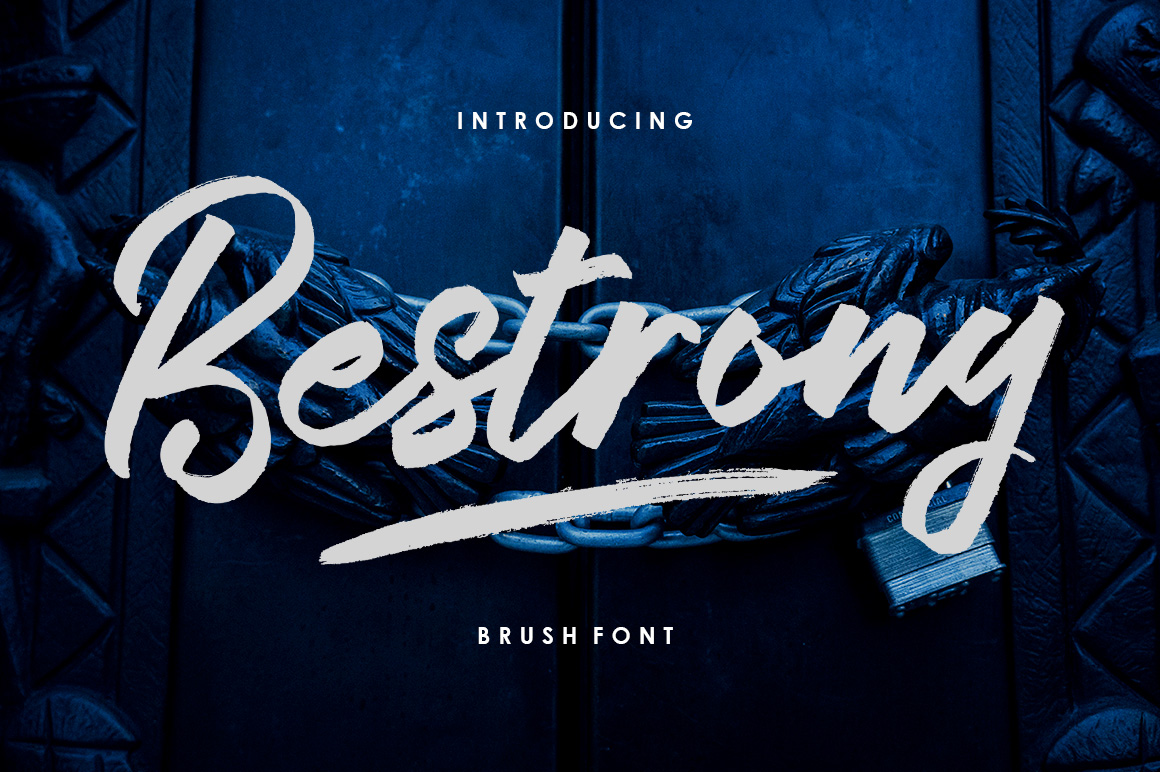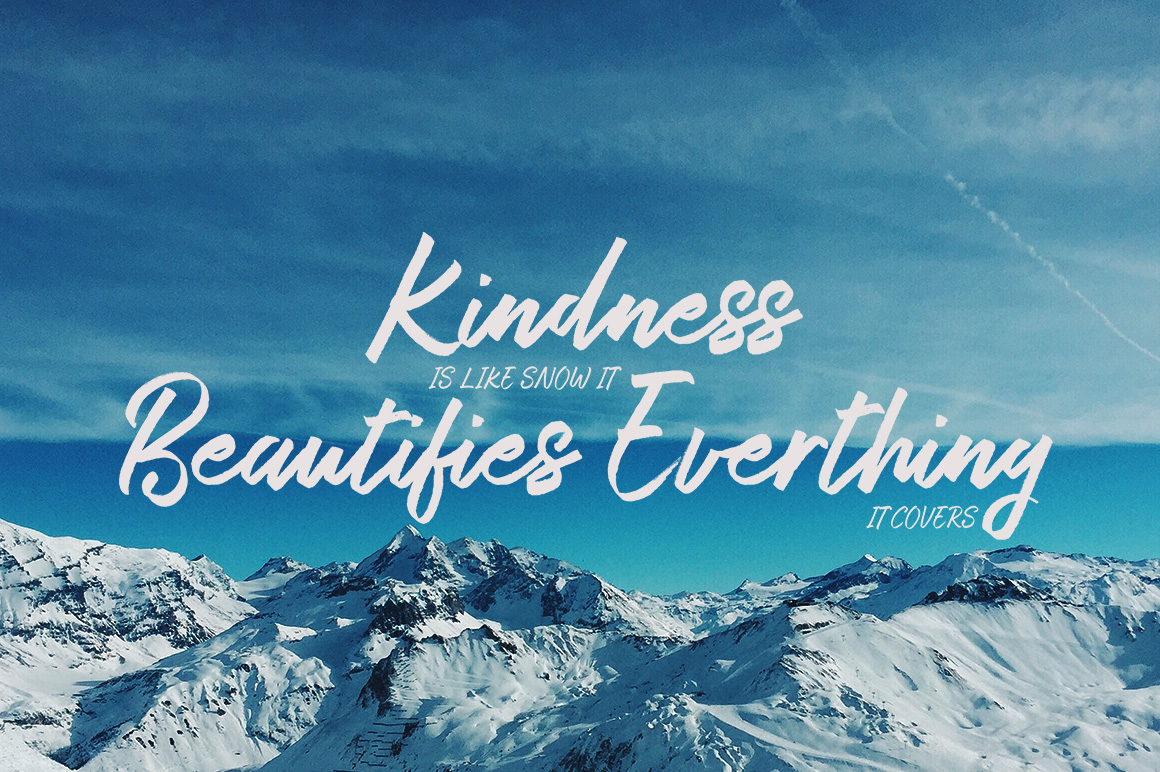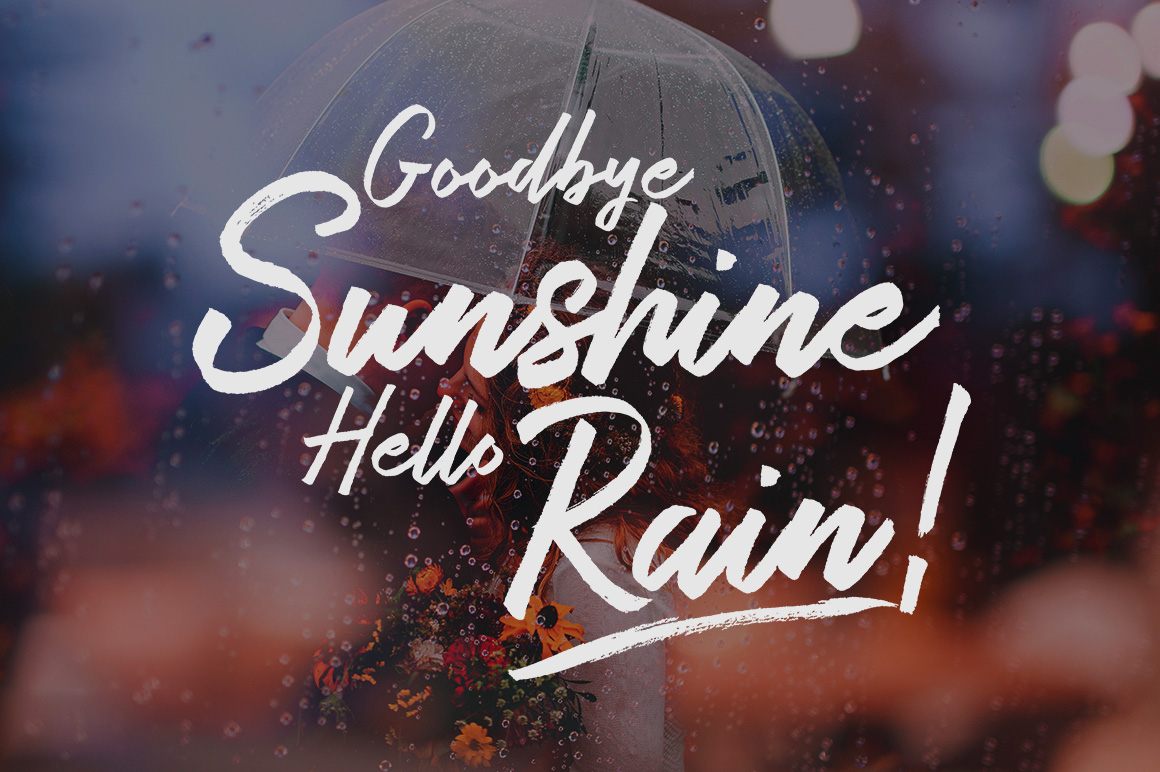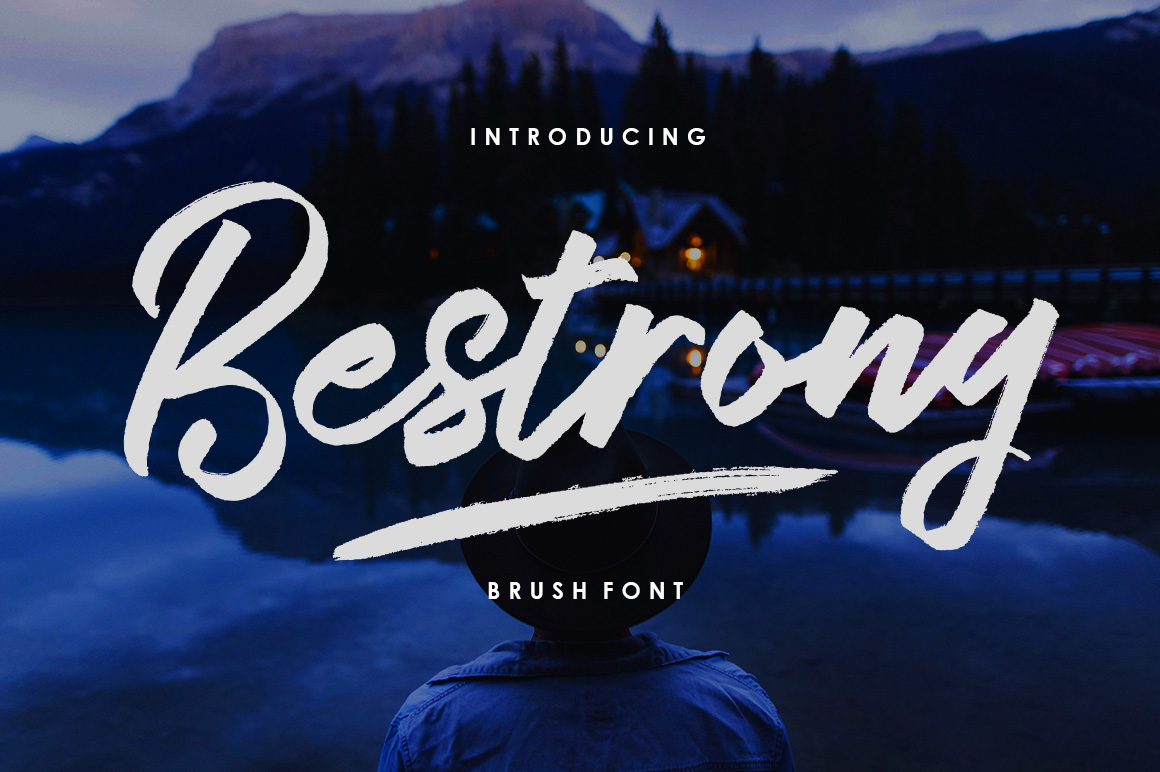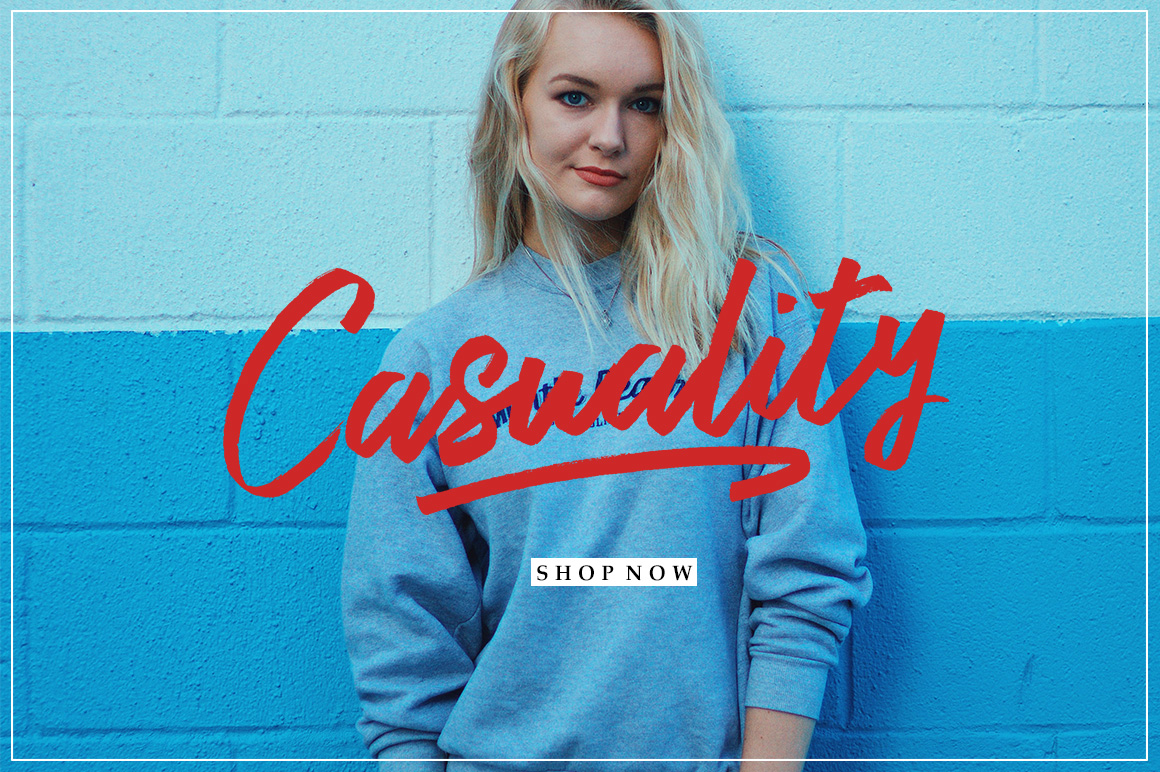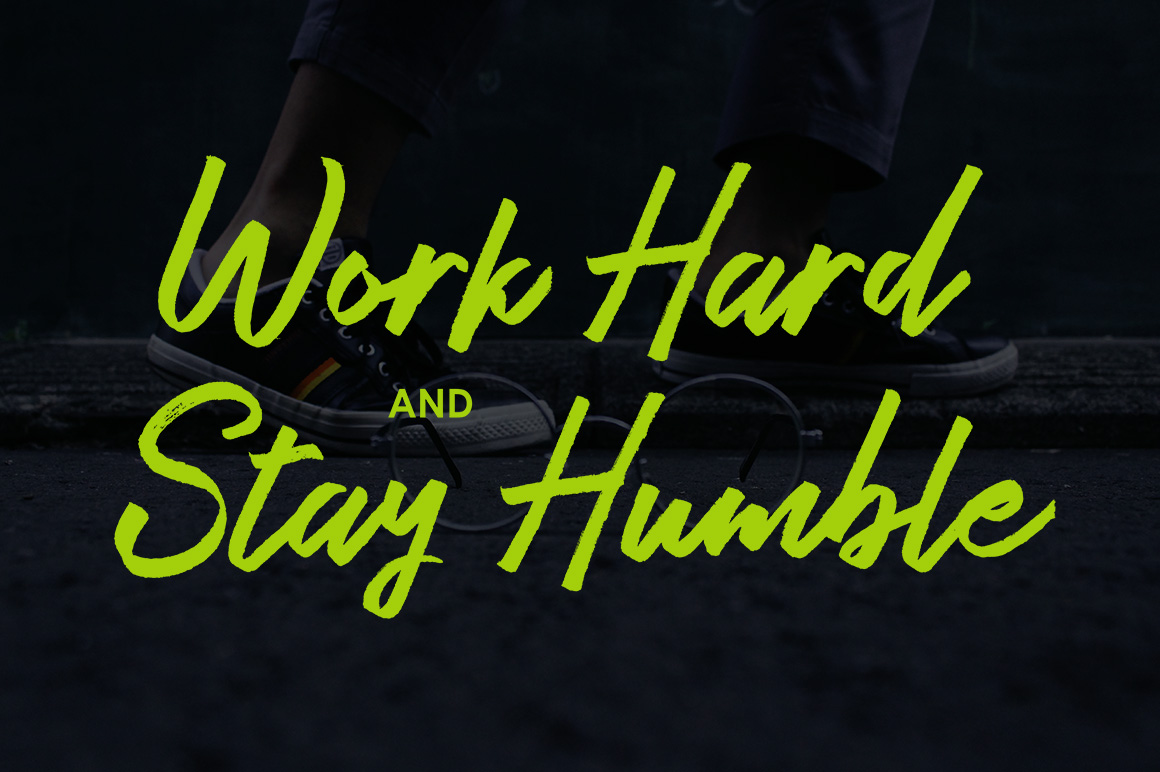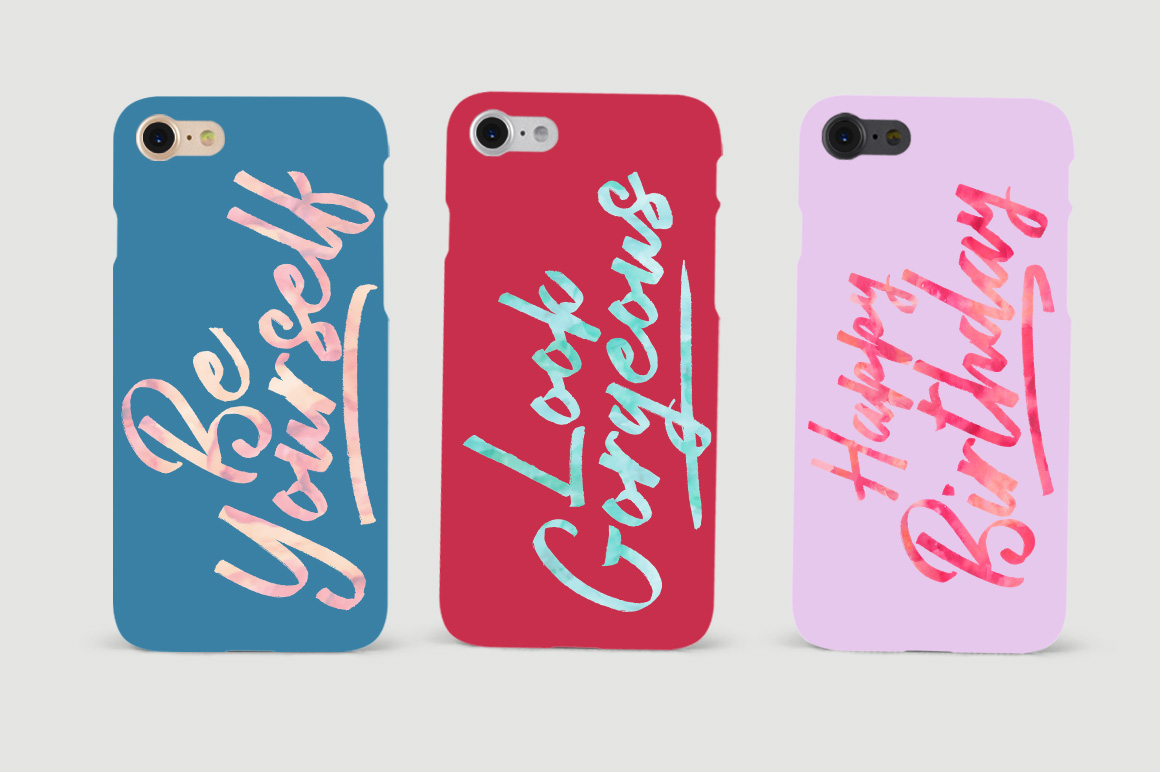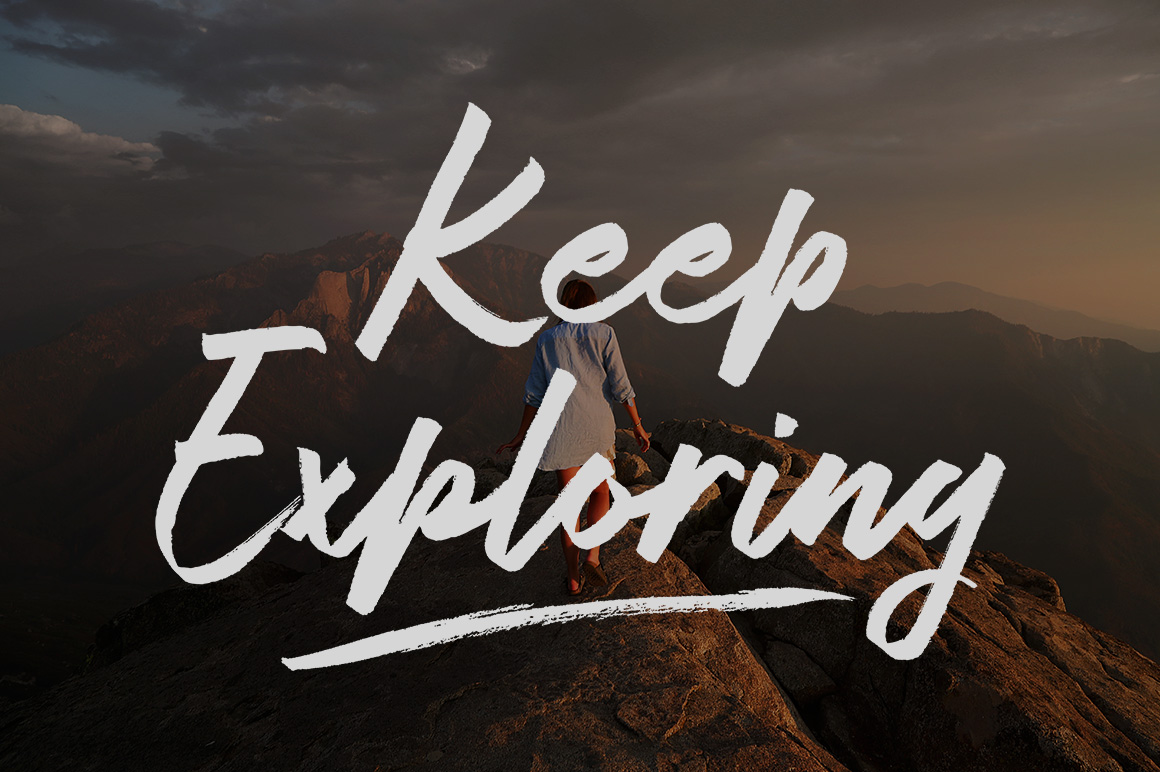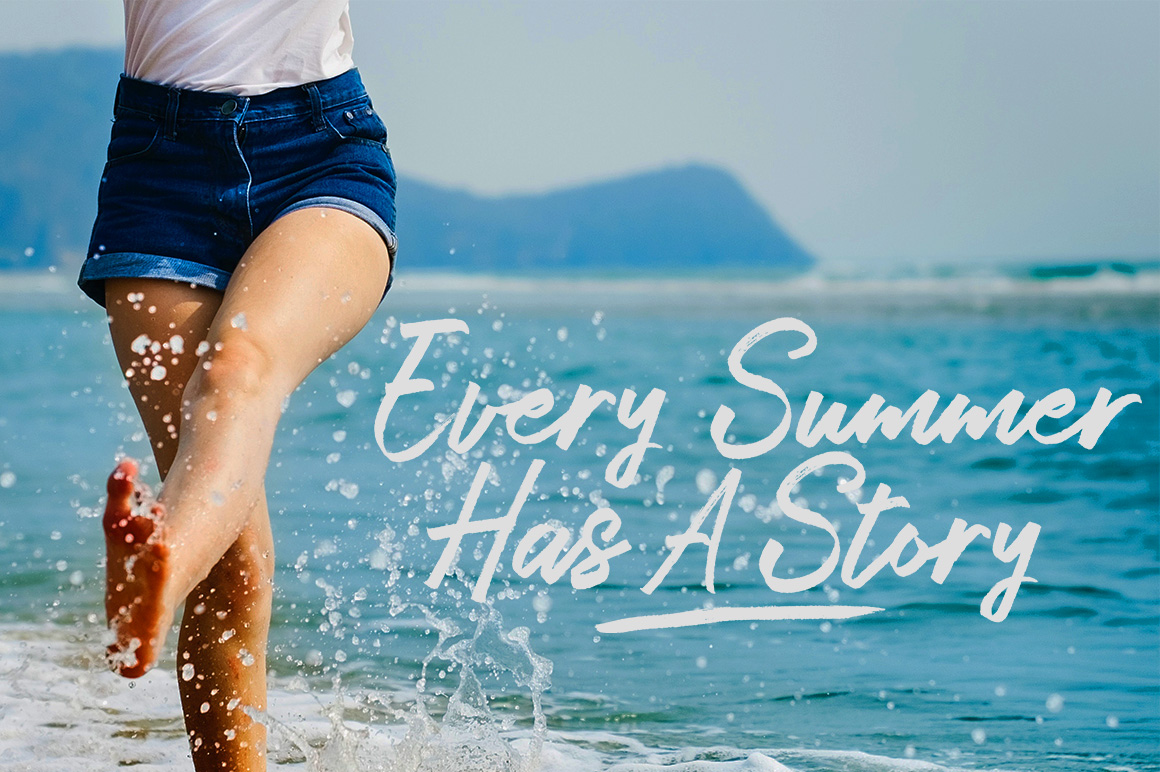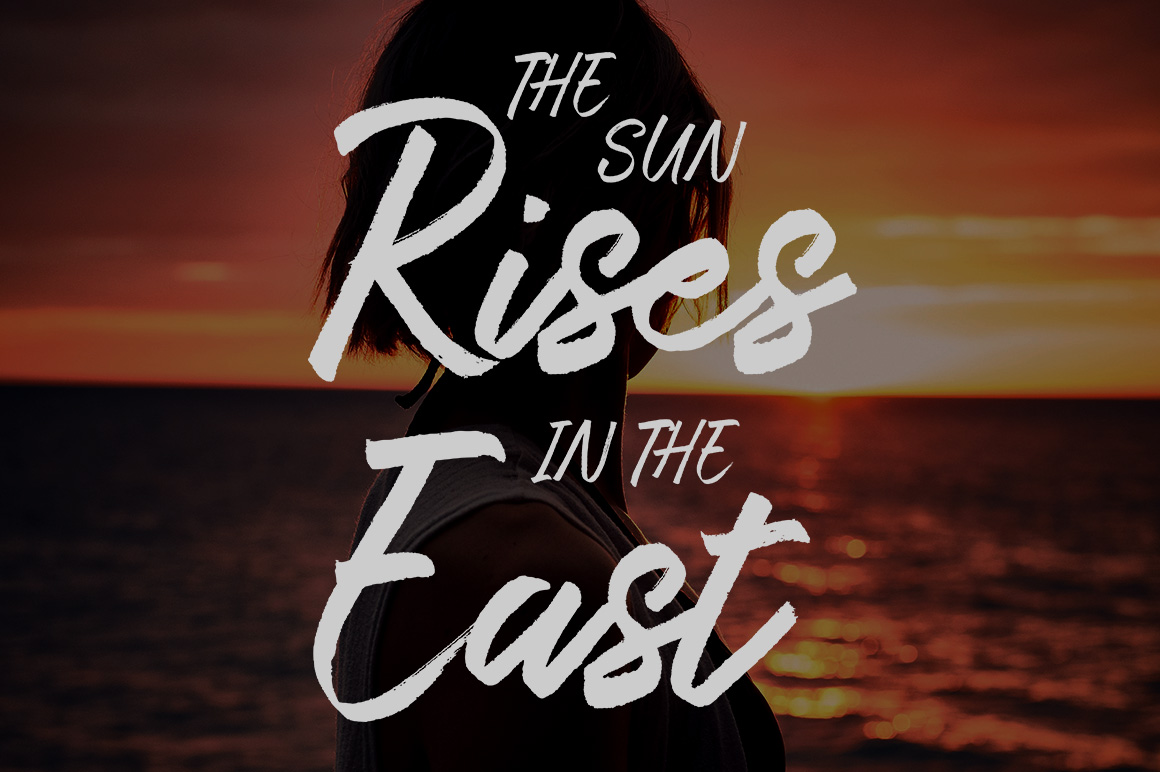
Bestrong Font
About Bestrong Font
Bestrong is a beautiful and hipster-esque brush font, ideal for branded looks or natural looking headlines. This font can add a personal charm to your projects with its dynamic look and relaxed feel.